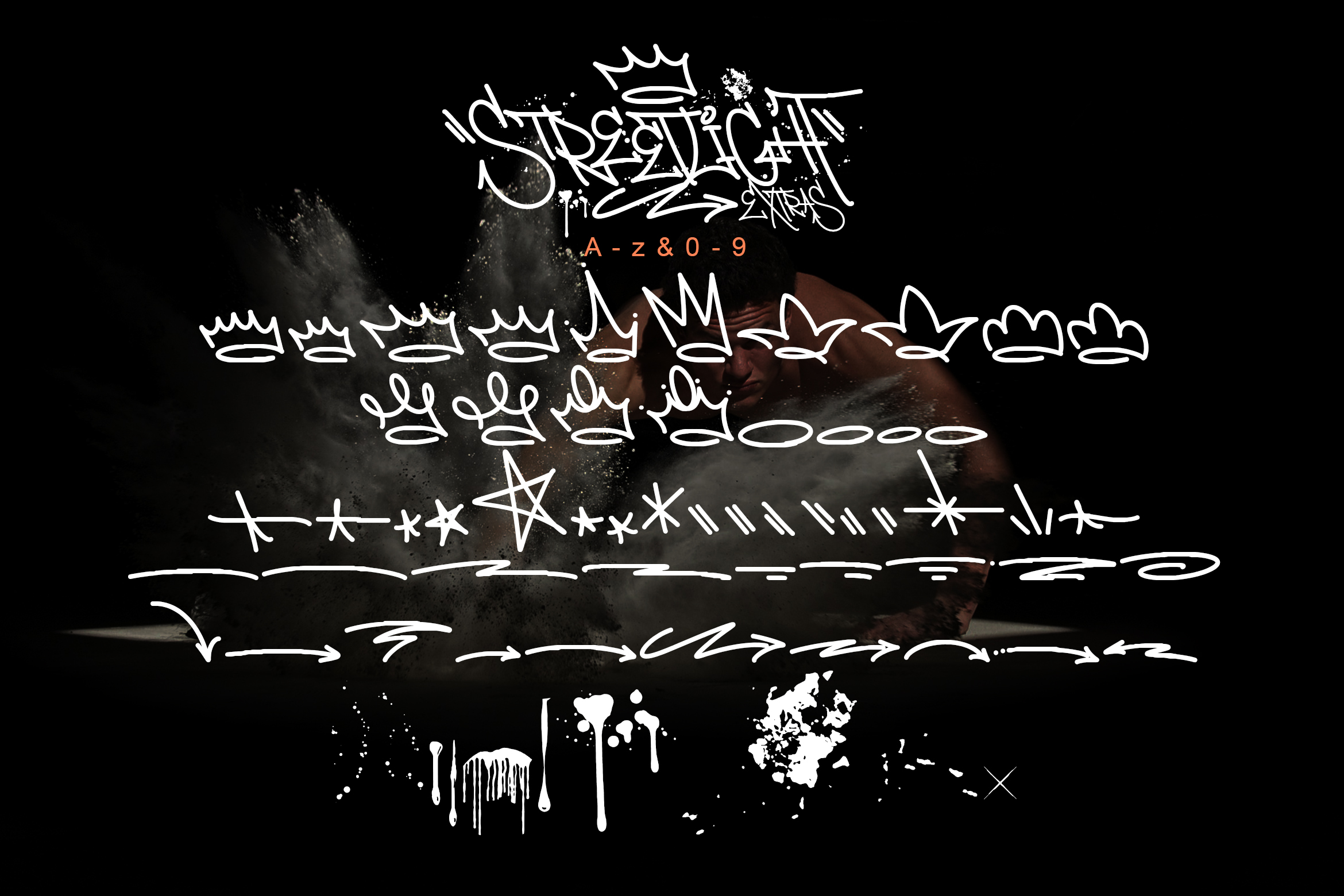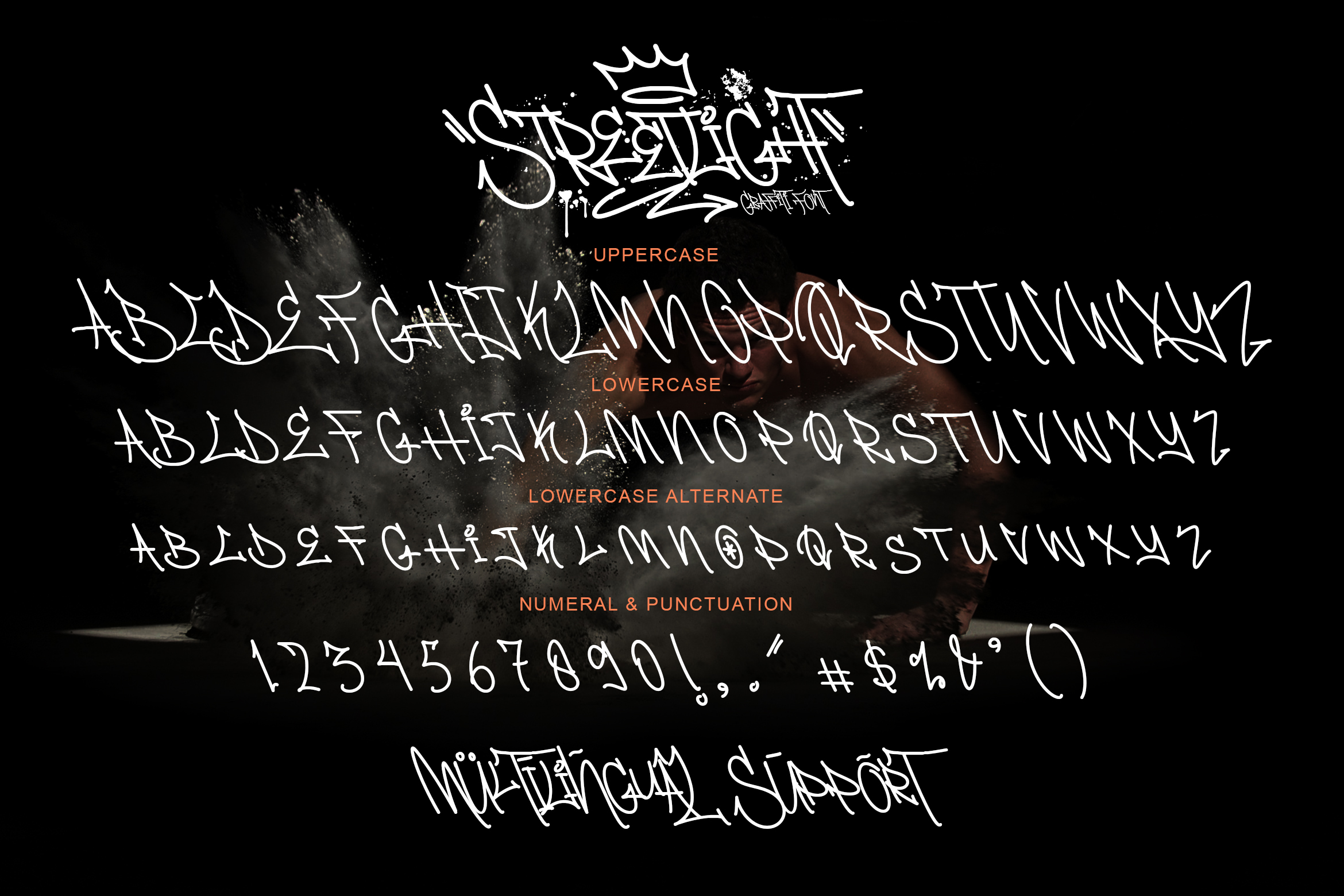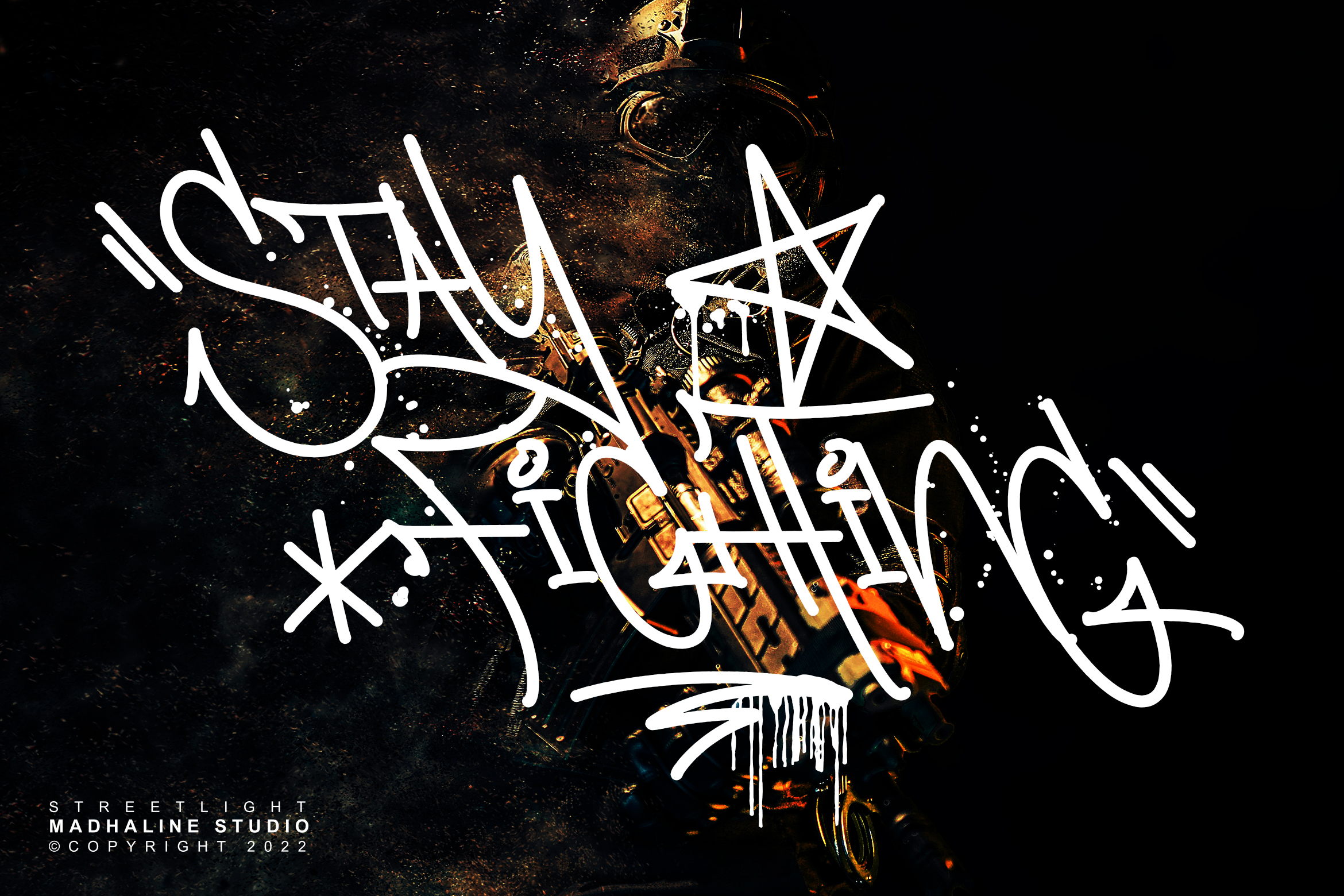
Streetlight Font
Streetlight Display Font
This is a graffiti font with a monoline style that is carefully written and adds a unique graffiti style. This font has a cool font arrangement that makes it look like real graffiti writing.
Streetlight would perfect for photography, advertisements, logos & branding, film, product designs, special events or anything that need graffiti taste.